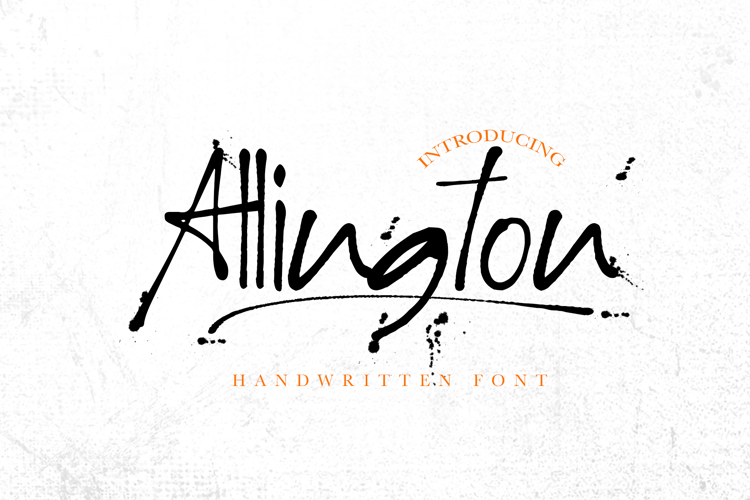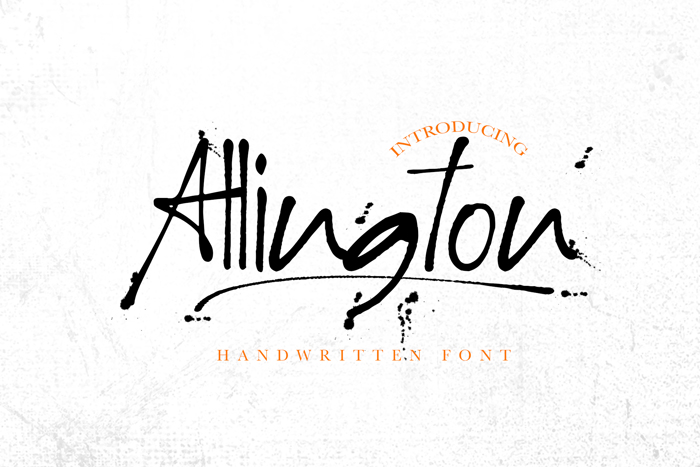
Allington Font
Allingtone is a stylish handwritten font font with casual chic flair. It is perfect for branding, wedding invites and cards, and maybe for red wine label.
Allingtone Uppercase, lowercase letters include swashes, giving realistic hand-lettered style.